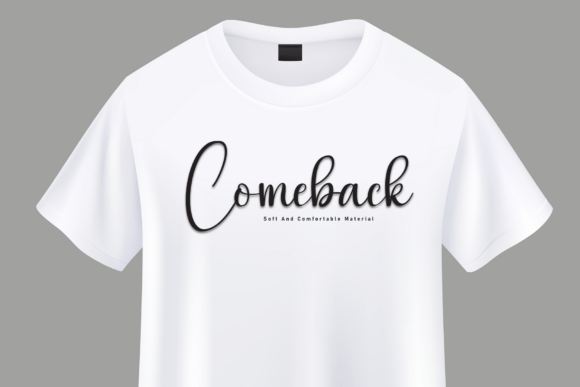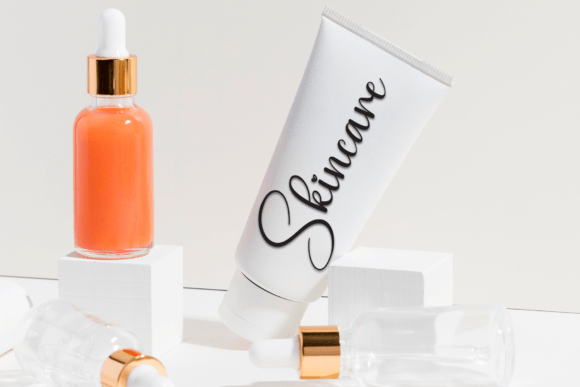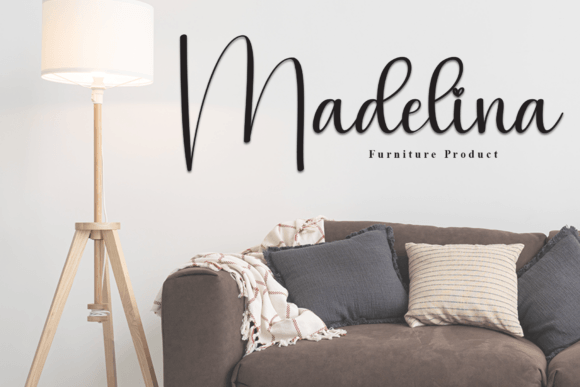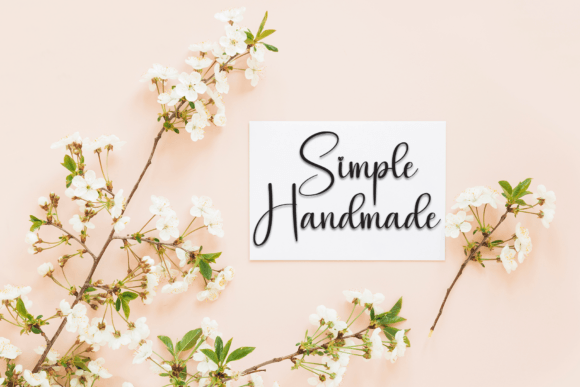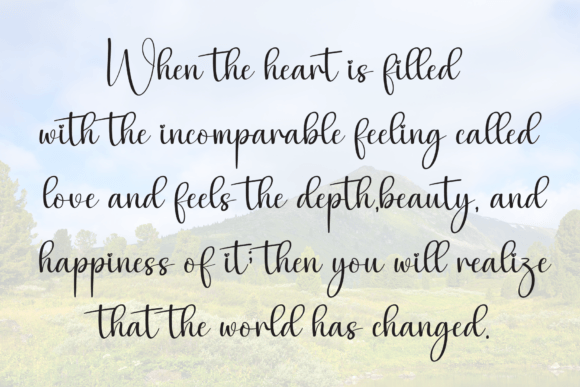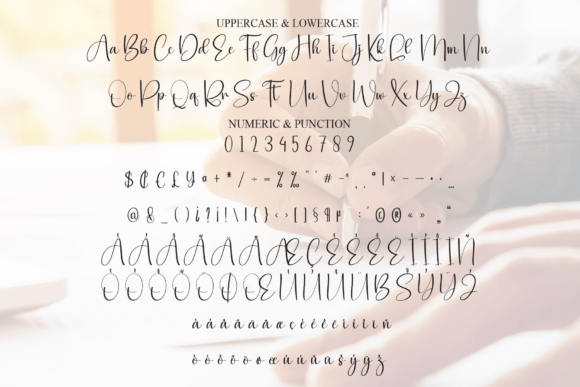
Daddy Signature Font: Elevate Your Designs with Elegance and Sophistication
In the world of typography, a well-crafted font can make all the difference in transforming a design from ordinary to extraordinary. For designers and crafters seeking to infuse their projects with a touch of sophistication and charm, the Daddy Signature Font is an exceptional choice. This refined and elegant handwritten script font is designed to bring a sense of class and individuality to a wide range of applications, from logos and branding to wedding invitations, signatures, and social media graphics.
The Essence of Daddy Signature Font
Daddy Signature Font is characterized by its smooth, flowing strokes and subtle, personal touch. Each letter is carefully crafted to exude a sense of refinement and luxury, making it perfect for projects that demand a high level of elegance. The font’s unique charm lies in its ability to convey a sense of warmth and approachability, while maintaining a professional and artistic aesthetic.
Key Features of Daddy Signature Font
- Refined and Elegant Design: Daddy Signature Font boasts a sophisticated and refined design, making it suitable for high-end projects and designs that require a touch of luxury.
- Handwritten Script Style: The font’s handwritten script style adds a personal and unique touch to any design, setting it apart from more traditional and formal fonts.
- Smooth and Flowing Strokes: The font’s smooth and flowing strokes create a sense of continuity and harmony, making it perfect for designs that require a sense of fluidity.
- Subtle and Personal Touch: The subtle and personal touch of Daddy Signature Font makes it ideal for projects that require a human and approachable feel.
Applications of Daddy Signature Font
Daddy Signature Font is a versatile font that can be used in a variety of applications, including:
- Logos and Branding: The font’s elegant and refined design makes it perfect for logos and branding projects that require a touch of sophistication.
- Wedding Invitations: The font’s romantic and elegant feel makes it ideal for wedding invitations and other special occasion designs.
- Signatures: Daddy Signature Font is perfect for creating unique and personalized signatures that add a touch of elegance to any document.
- Social Media Graphics: The font’s modern and artistic feel makes it suitable for social media graphics, including quotes, posters, and other visual content.
Why Choose Daddy Signature Font?
With so many fonts available, why choose Daddy Signature Font? Here are a few compelling reasons:
- Unique and Individualistic: Daddy Signature Font offers a unique and individualistic approach to typography, setting it apart from more traditional and common fonts.
- Professional yet Artistic: The font’s elegant and refined design makes it perfect for professional projects, while its artistic feel adds a touch of creativity and flair.
- Easy to Read and Understand: Despite its elegant and refined design, Daddy Signature Font remains easy to read and understand, making it suitable for a wide range of applications.
In conclusion, Daddy Signature Font is an exceptional choice for designers and crafters seeking to elevate their designs with elegance and sophistication. With its refined and elegant handwritten script style, smooth and flowing strokes, and subtle and personal touch, this font is perfect for a wide range of applications. Whether you’re working on a logo, wedding invitation, signature, or social media graphic, Daddy Signature Font is sure to bring a sense of class and individuality to your projects.